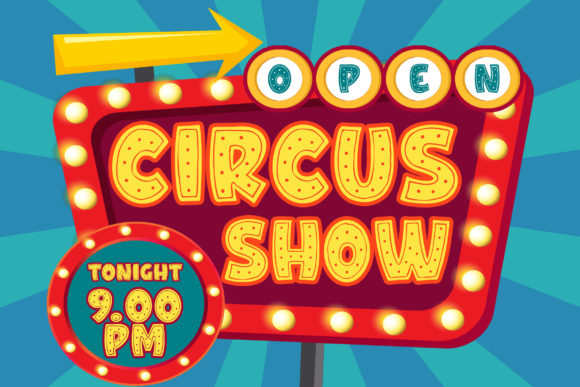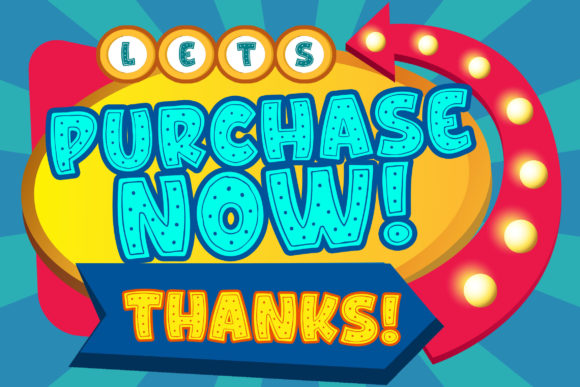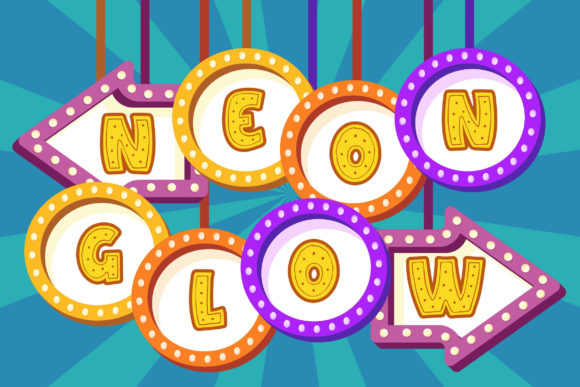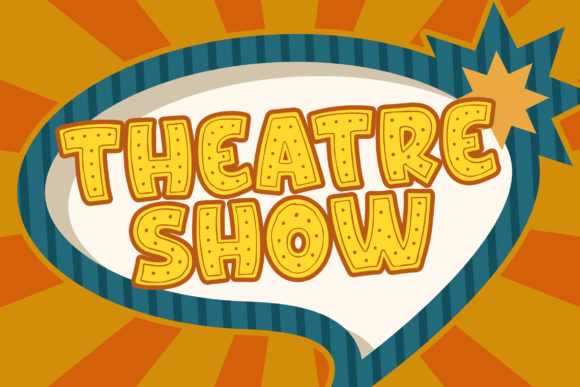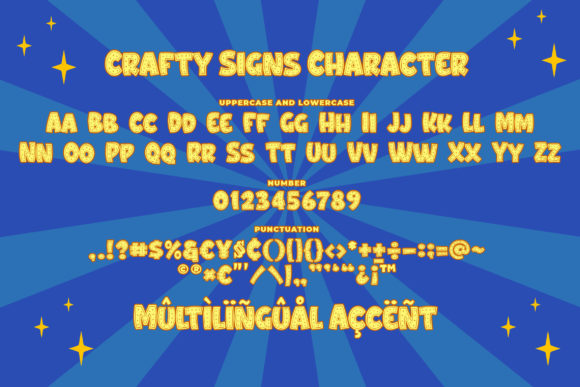
Crafty Signs Font: The Perfect Addition to Your Creative Projects
Are you a designer or crafter looking for a font that can add a touch of playfulness and creativity to your projects? Look no further than Crafty Signs Font! This bold and playful display font is perfect for crafty projects that need attractive and fun typography. In this article, we’ll take a closer look at Crafty Signs Font and explore its features, benefits, and uses.
What is Crafty Signs Font?
Crafty Signs Font is a display font designed to add a touch of whimsy and creativity to your projects. With its bold and playful design, this font is perfect for crafty projects, DIY tutorials, and creative endeavors that require eye-catching typography. The font is made with a great level of aesthetics, making it suitable for any creative project you have coming up.
Key Features of Crafty Signs Font
Crafty Signs Font comes with several key features that make it an excellent choice for designers and crafters. Some of its notable features include:
• Bold and Playful Design: Crafty Signs Font has a bold and playful design that is perfect for adding a touch of whimsy to your projects.
• High Aesthetic Value: The font is designed with a great level of aesthetics, making it suitable for any creative project.
• Easy to Read: Despite its bold design, Crafty Signs Font is easy to read, making it perfect for use in titles, headings, and other display text.
• Versatile: Crafty Signs Font can be used in a variety of projects, from crafty DIY tutorials to creative design projects.
Benefits of Using Crafty Signs Font
Uses of Crafty Signs Font
Crafty Signs Font can be used in a variety of projects, including:
• Crafty DIY Tutorials: Use Crafty Signs Font to add a touch of playfulness and creativity to your DIY tutorials.
• Design Projects: Crafty Signs Font is perfect for use in design projects, such as brochures, flyers, and posters.
• Social Media Graphics: Use Crafty Signs Font to create eye-catching social media graphics that stand out.
• Signage: Crafty Signs Font is perfect for use in signage, such as store signs, event signs, and directional signs.
Tips for Using Crafty Signs Font
Here are some tips for using Crafty Signs Font in your projects:
• Use it as a Display Font: Crafty Signs Font is designed to be used as a display font, so use it sparingly to add emphasis to your text.
• Experiment with Colors: Try experimenting with different colors to find the perfect combination for your project.
• Pair it with Other Fonts: Crafty Signs Font can be paired with other fonts to create a unique and visually appealing look.
Font Name Crafty Signs Font
Author Blankids Studio
In conclusion, Crafty Signs Font is a bold and playful display font that is perfect for crafty projects that need attractive and fun typography. With its high aesthetic value, versatility, and ease of use, Crafty Signs Font is an excellent choice for designers and crafters. Whether you’re working on a DIY tutorial, design project, or social media graphic, Crafty Signs Font is sure to add a touch of creativity and whimsy to your work.